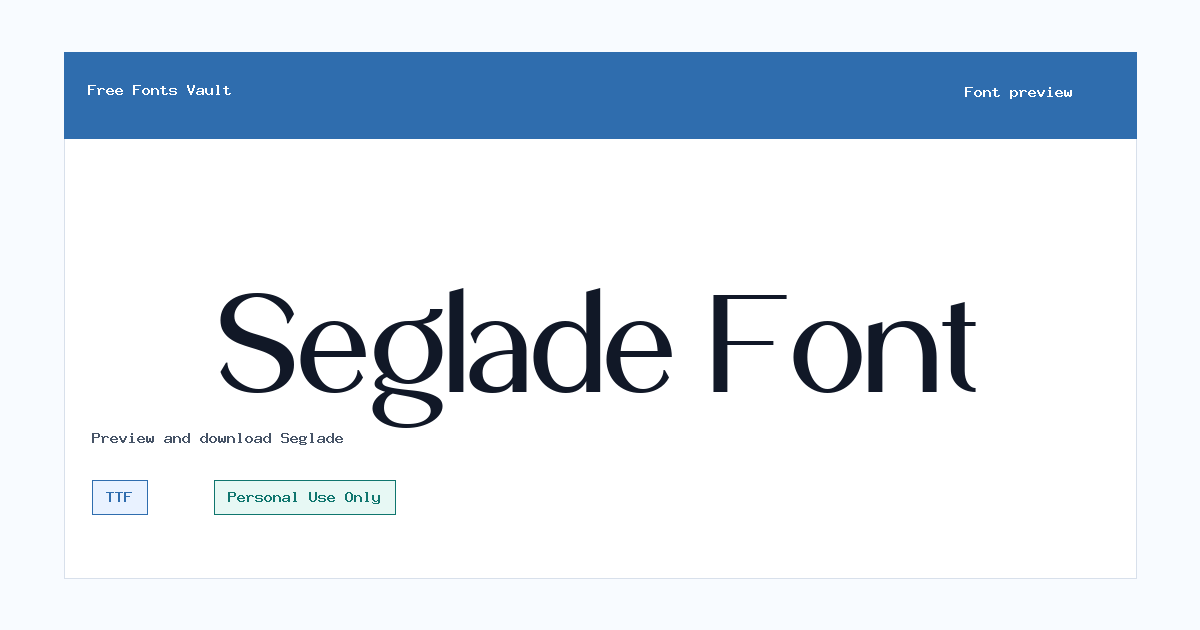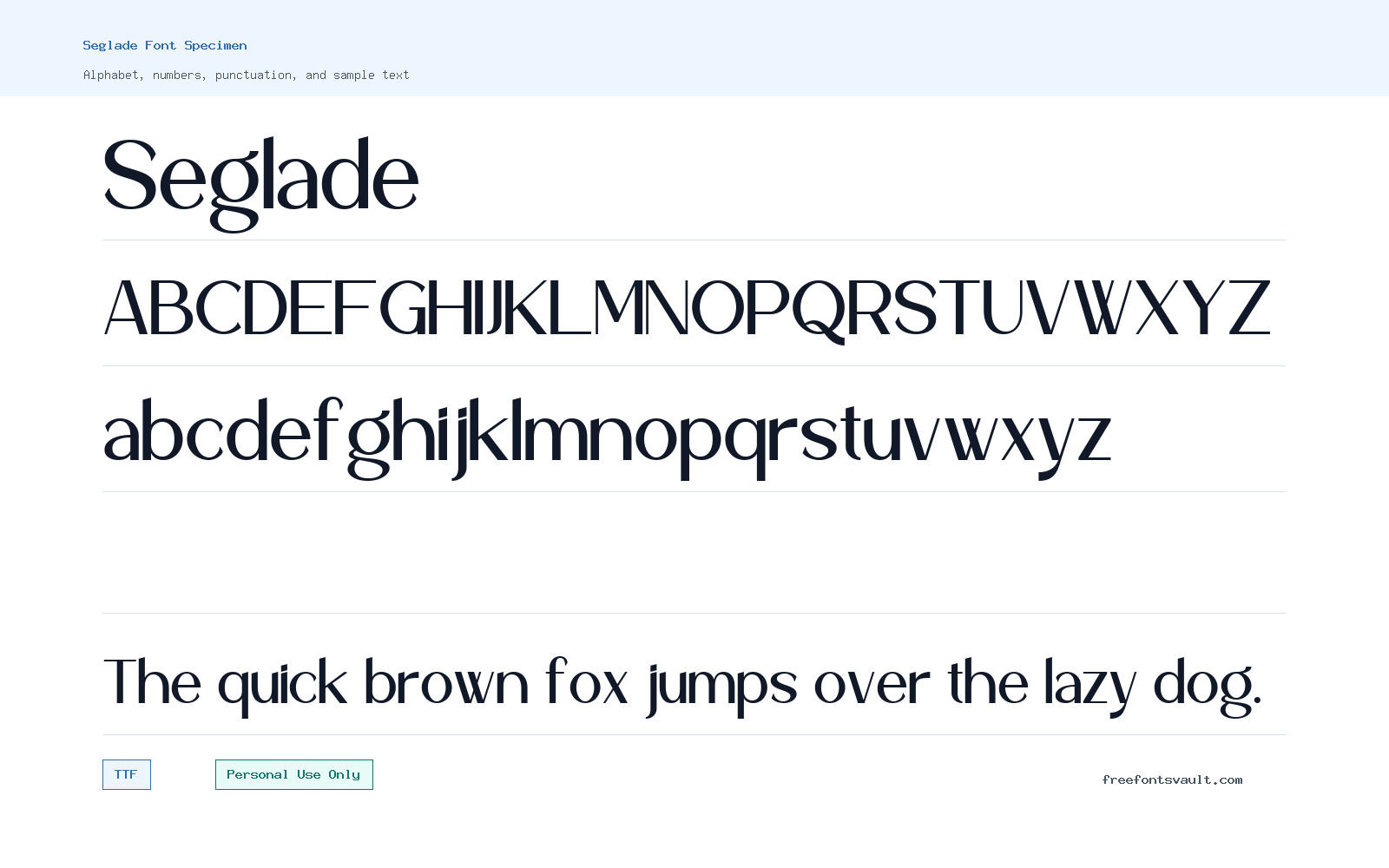
Seglade
Seglade font preview showing the family name
Seglade Font
Seglade font specimen showing alphabet, numbers, and sample text
• Designer Say Studio
Seglade font.
Seglade is a sans serif font family with a regular TTF style for personal projects. It is a good choice to test when you need clean lettering for short display text, simple headings, or design mockups.
About Seglade
Seglade keeps the focus on clear sans serif letterforms rather than decorative effects. The regular style is marked as normal weight 400, so it is best approached as a straightforward display or text-support option instead of a full multi-weight family. Because only one style is listed, it works most naturally in places where you do not need bold, italic, condensed, or extended variations.
Use the preview box to test the exact words you plan to design with, especially names, titles, menu labels, and short phrases. Single-style fonts can look polished in a logo draft, poster header, social graphic, or personal branding concept, but they may feel limited in longer layouts that need hierarchy. If you are building a full page or presentation, pair Seglade with a neutral body font and let Seglade handle the main title or accent line.
• Normal 400 weight for clean, simple typography
• Best suited to short text, headings, and personal design tests
• Single-style family, so layout hierarchy should come from size, spacing, or pairing
• Personal logo drafts and name marks
• Poster titles and social media graphics
• Website hero headings in mockups
• Branding experiments and mood boards
• Short labels, covers, and presentation titles
The designer is listed as Say Studio. No foundry name or designer website is included in the font details.
What is Seglade best used for?
Seglade is best tested for short personal-use designs such as headings, logo drafts, social graphics, posters, covers, and presentation titles.
Should I use Seglade for paragraph text?
Test it first, but a single regular display-style font is usually easier to manage in headings than in long paragraphs. Pair it with a readable body font for larger layouts.